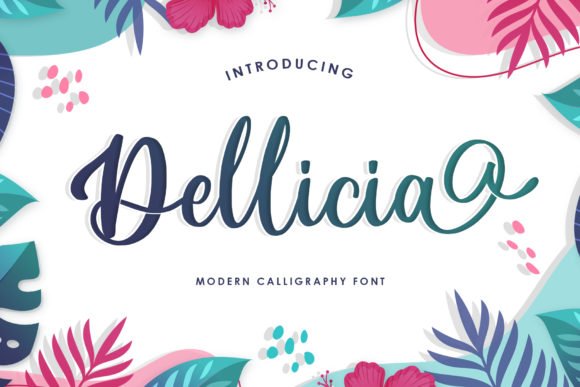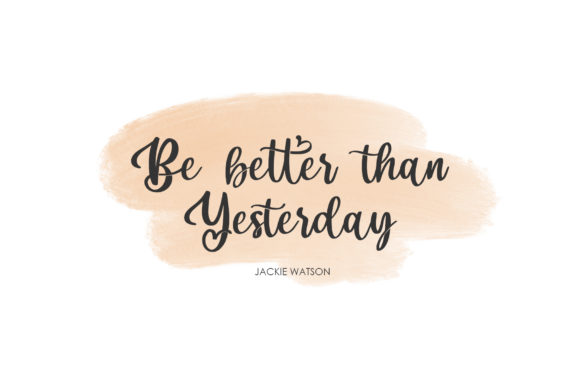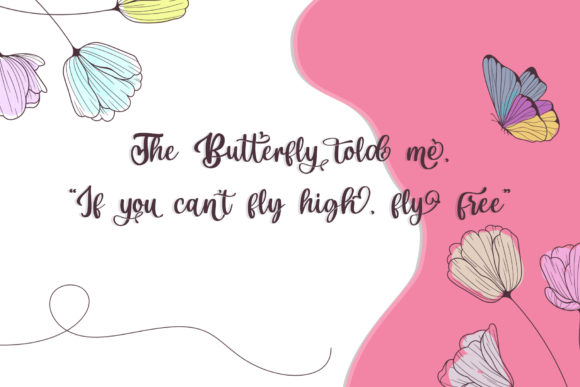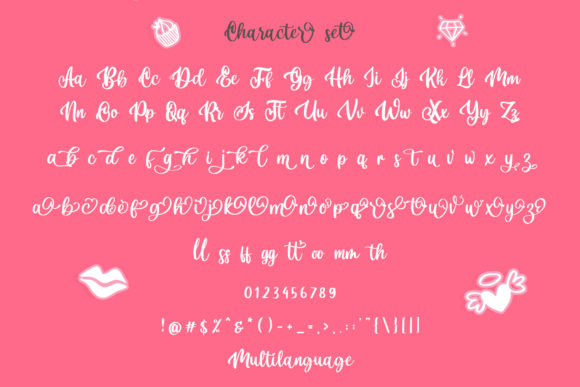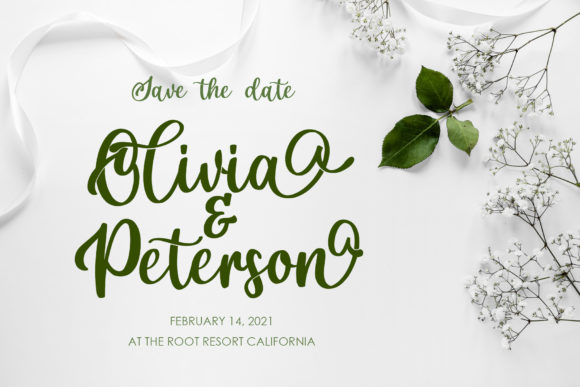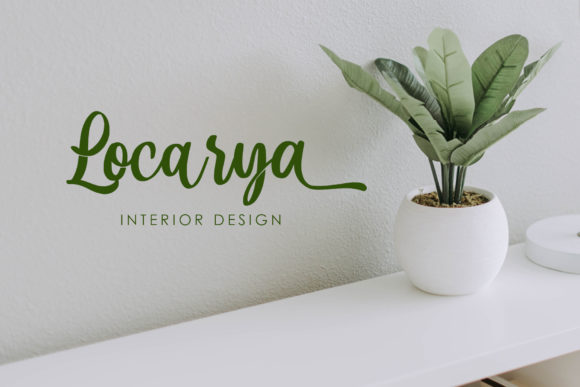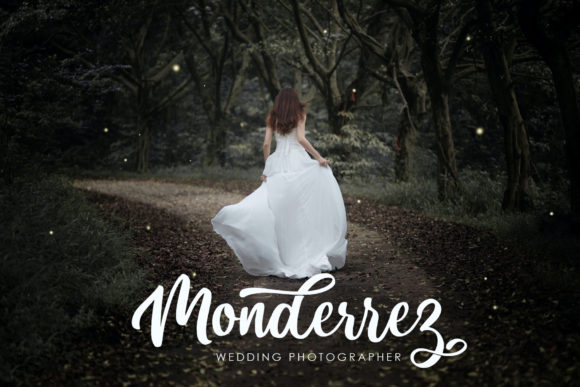
Have you ever stumbled upon a font that instantly sparks a creative idea? For me, that moment came when I discovered the Dellicia Font. Its elegant script and playful swashes transported me to a world of romance and joy, inspiring me to create something truly special.
Dellicia Font is a fashionable and romantic script font, designed to add a touch of whimsy to any project. With its PUA encoding, accessing all of the glyphs and swashes is a breeze, allowing designers to unleash their creativity and bring their visions to life. Whether you’re working on a wedding invitation, a love letter, or a design project that requires a dash of romance, Dellicia Font is the perfect choice.
Dellicia Font Key Features
- Font Family: Dellicia is a script font designed for creative and elegant purposes.
- Unique Characteristics: Dellicia features a unique blend of handwritten and calligraphic elements, making it ideal for creative projects, invitations, and wedding designs.
Dellicia Font Review
I recently had the chance to work with the Dellicia Font, and I must say it’s a unique addition to any design project. ✨ Here are some of its strengths:
- Dellicia’s elegant and cursive script makes it perfect for creating invitations, wedding stationery, and other special occasions.
- The font’s fluid lines and organic feel give it a hand-written look, which can be very appealing in certain contexts.
- The font is highly legible, even at smaller font sizes, making it a great choice for body text.
- The font may not be suitable for corporate or formal branding, as its cursive script may come across as unprofessional.
- The font lacks a bold weight, which can make it difficult to use for headings or titles in certain situations.
- The font’s organic feel can also make it difficult to pair with more geometric or modern fonts.
Overall, I think Dellicia Font is a beautiful addition to any designer’s toolkit. While it may have some limitations, its unique qualities make it perfect for certain projects and applications. With a little creativity and experimentation, you can unlock the full potential of this charming font.
Dellicia Font is a elegant and modern font, making it perfect for:
- Brand logos and identity
- Editorial and magazine design
To get the most out of Dellicia Font, use it in conjunction with other elegant fonts and a clean design aesthetic
Alternatives to Dellicia Font
Lato is a modern sans-serif font that works well for body text and headings. It has a clean and minimalist design that is easy to read. Lato is a good choice for websites, magazines, and other digital publications. It is a more neutral and versatile font compared to Dellicia, which has a more unique and stylized design.
Montserrat is a sans-serif font that originated from a sign in a neighborhood in Buenos Aires. It has a geometric and urban feel that works well for headings and titles. Montserrat is a more energetic and modern font compared to Dellicia, which makes it a good choice for websites, apps, and other digital products that require a bold and attention-grabbing design.
Open Sans is a modern sans-serif font that is highly legible and works well for body text. It has a clean and neutral design that is easy to read on screens. Open Sans is a more neutral and versatile font compared to Dellicia, which makes it a good choice for websites, blogs, and other digital publications that require a clean and simple design.